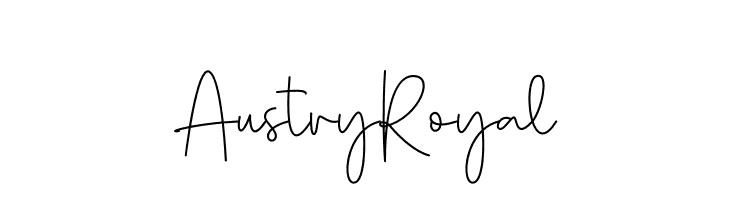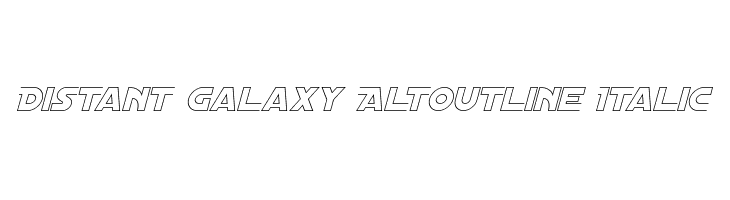
( Fonts by Dieter Steffmann )
An ornate, decorative font with intricate floral patterns in each letter.
( Ydhra Studio - creativemarket.com/ydhra )
An elegant script font with fluid, cursive strokes and high contrast.
( Fonts by K26 Fonts )
A playful, bold, hand-drawn font with thick, rounded strokes.
A bold, condensed, and italic font with a modern, angular design.
( Fonts by Caffeen Fonts - www.swank.ca/caffeen/fonts/ )
A geometric, three-dimensional font with a modern, futuristic style.
Bold, italicized font with a modern and dynamic style.
Education-themed dingbat font with detailed school-related illustrations.
A modern, italic font with a condensed and dynamic style.
设计师偏爱 Eileen Caps Regular, Bellasic, K26Swashbuckle, Amuro Condensed Bold Italic and caffeen,因为其造型干净、适用范围广—— 从品牌识别到落地页、海报都能胜任。